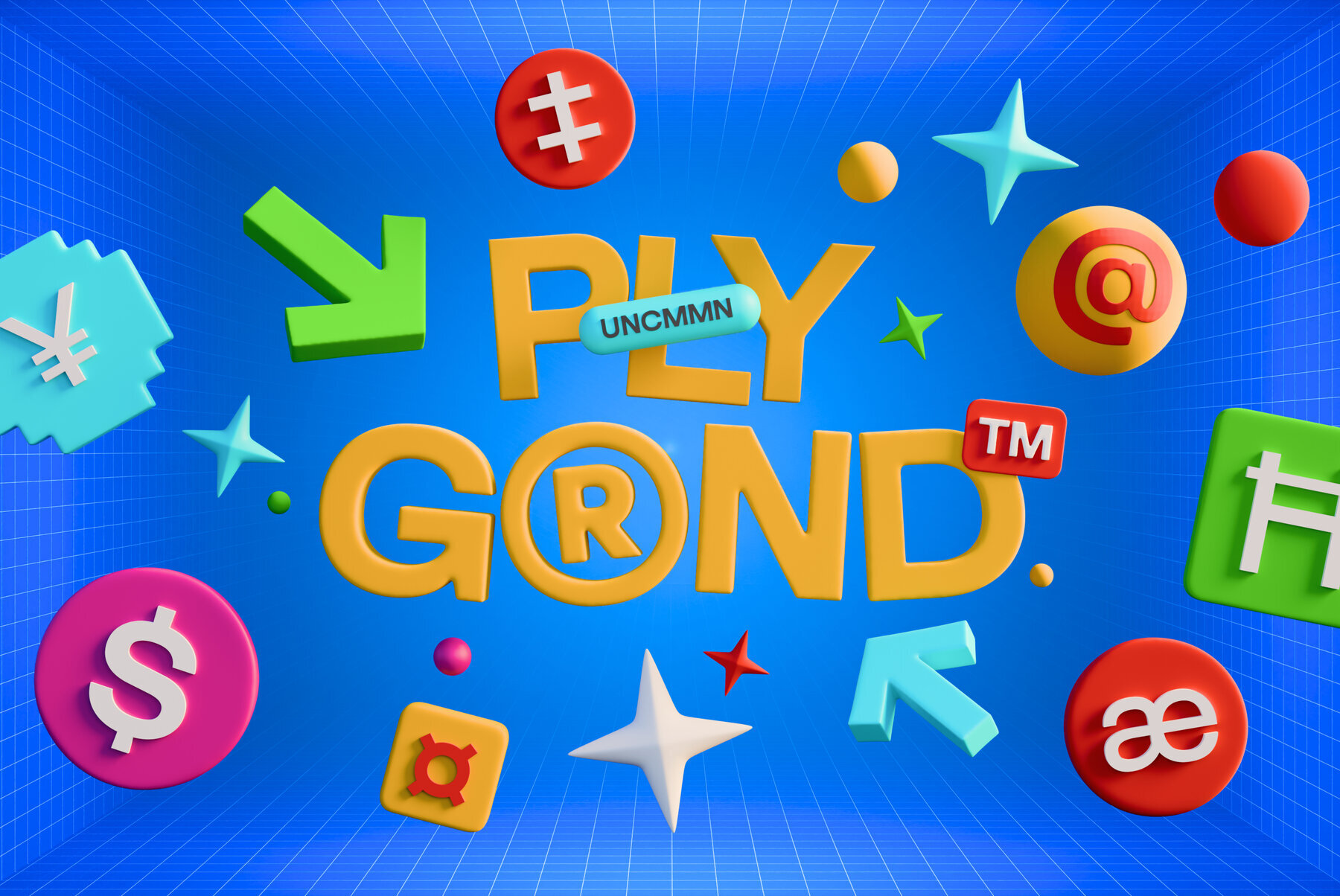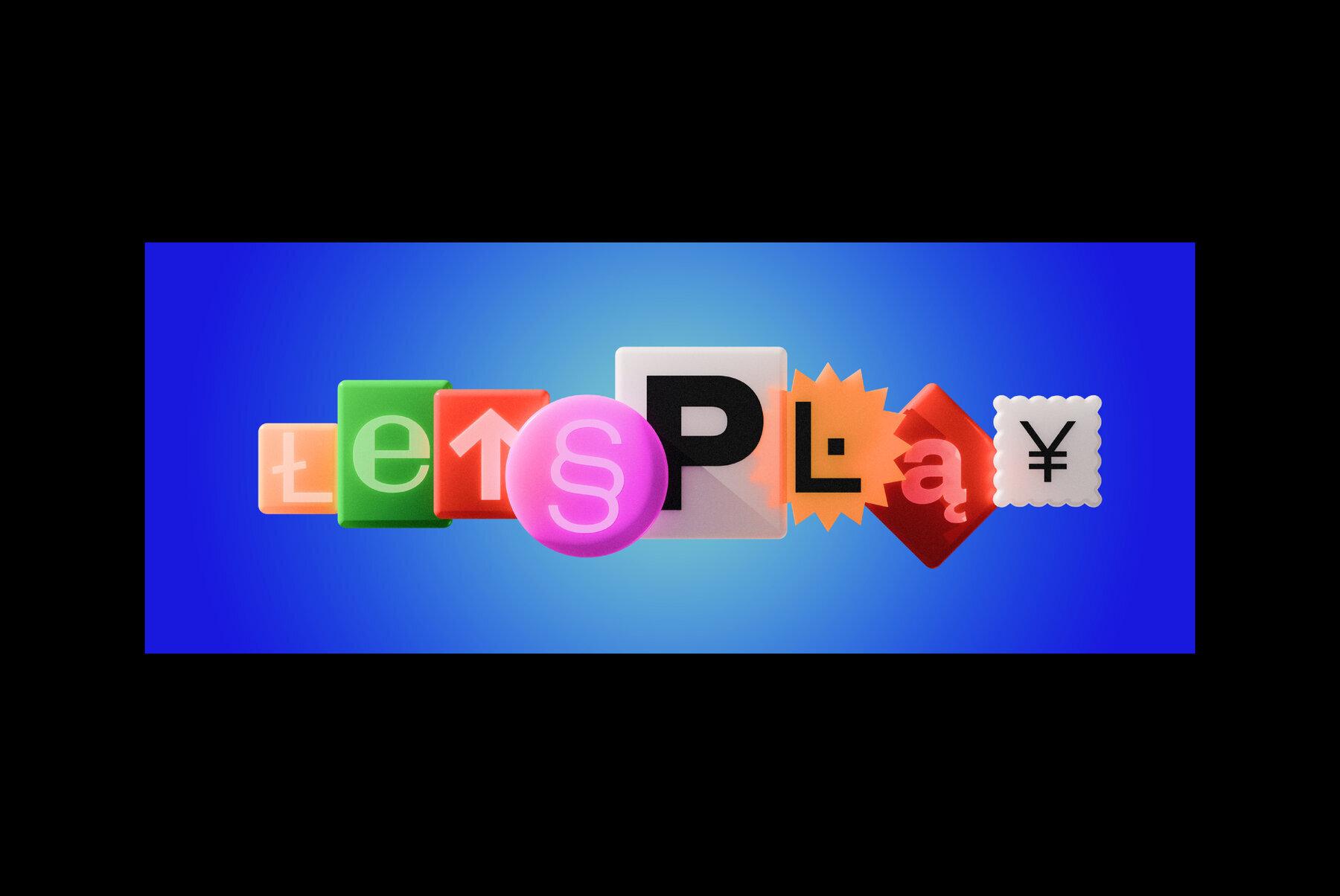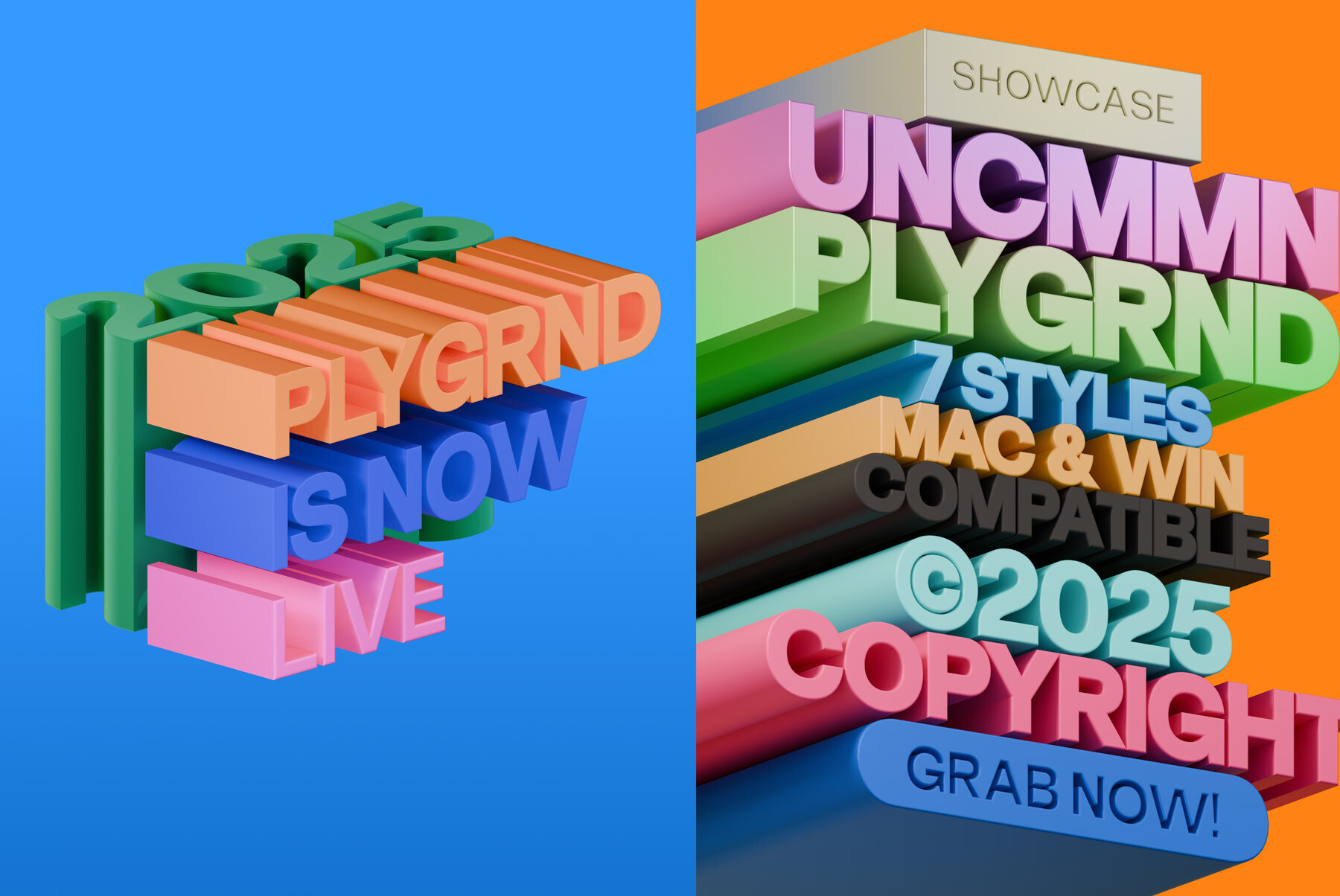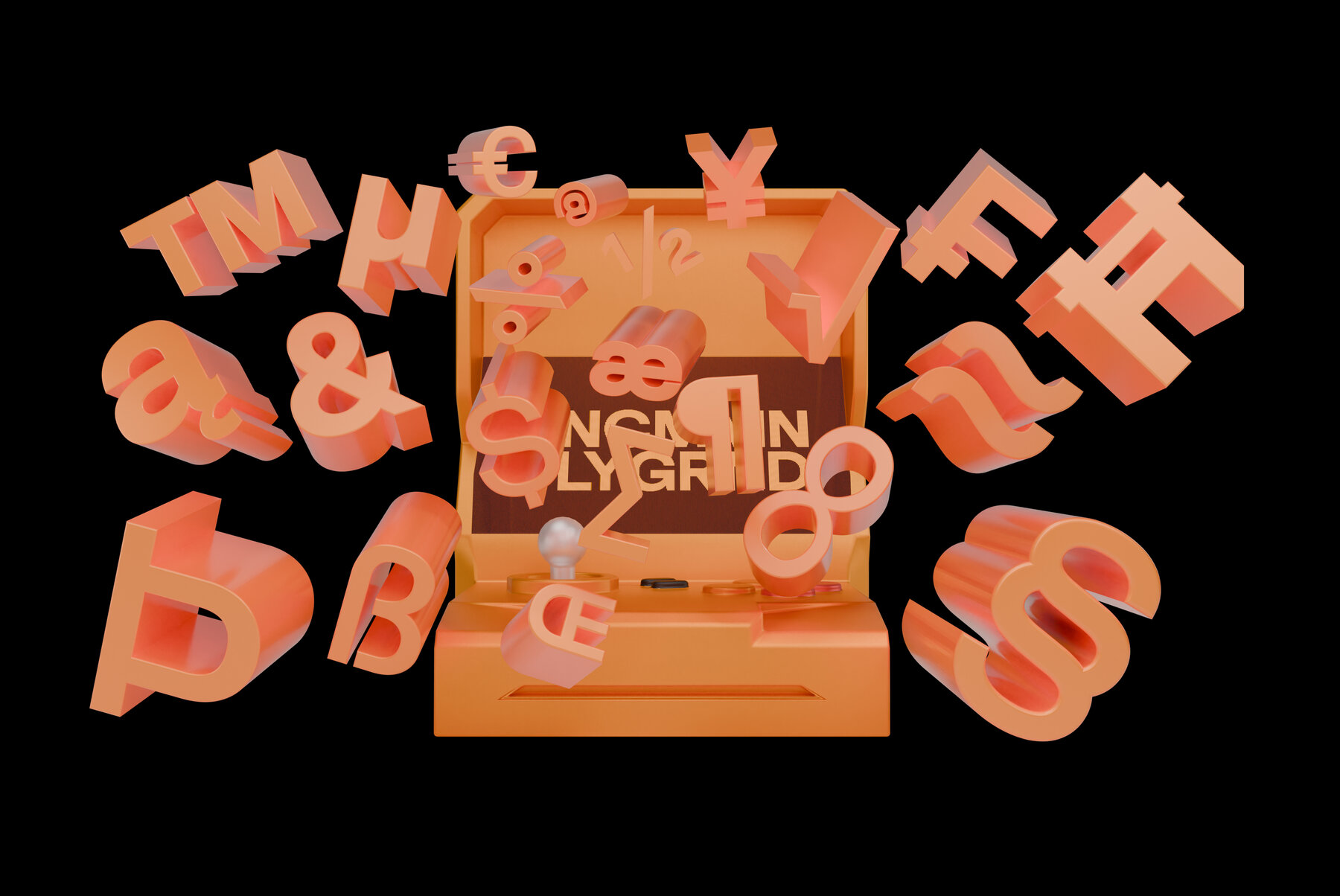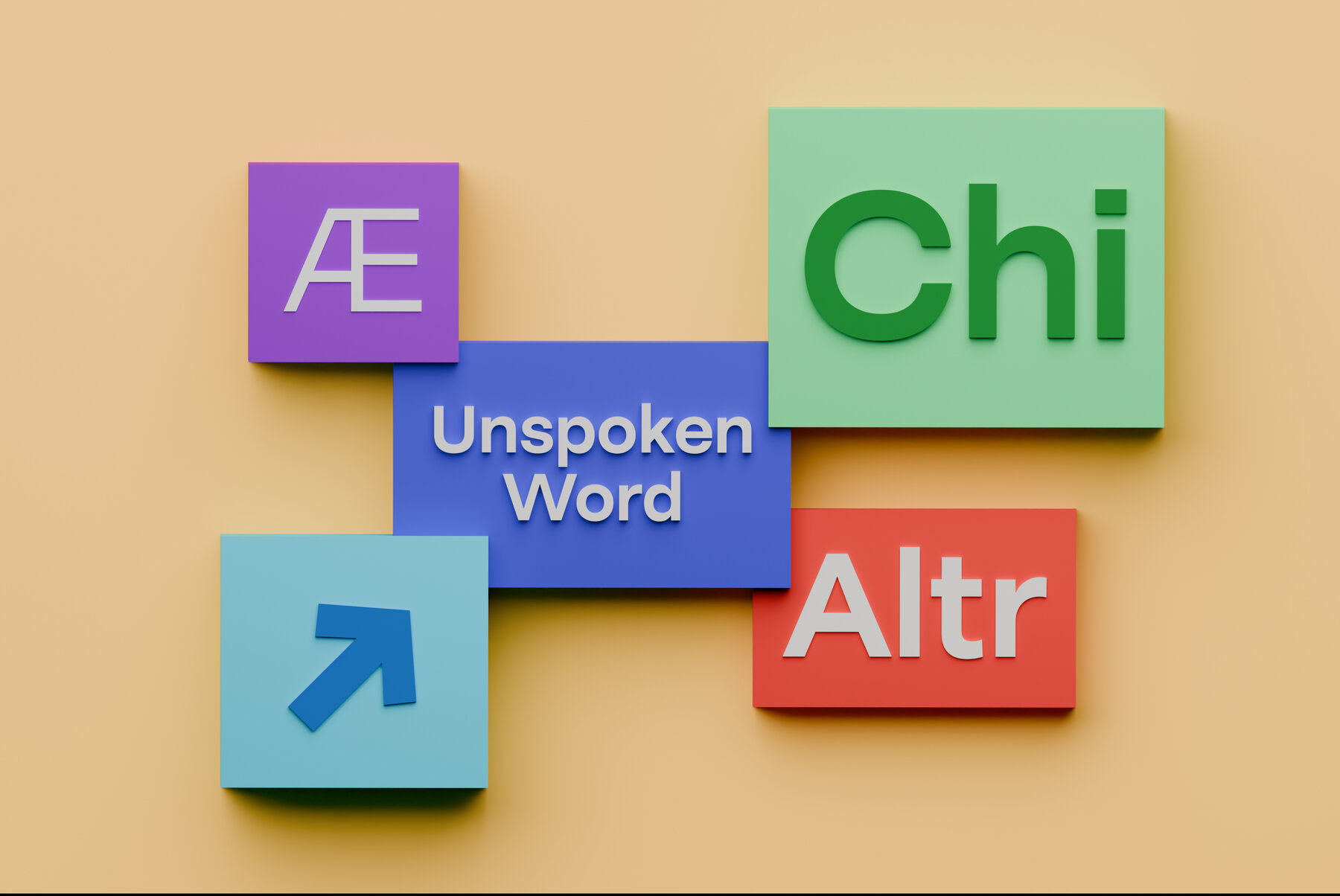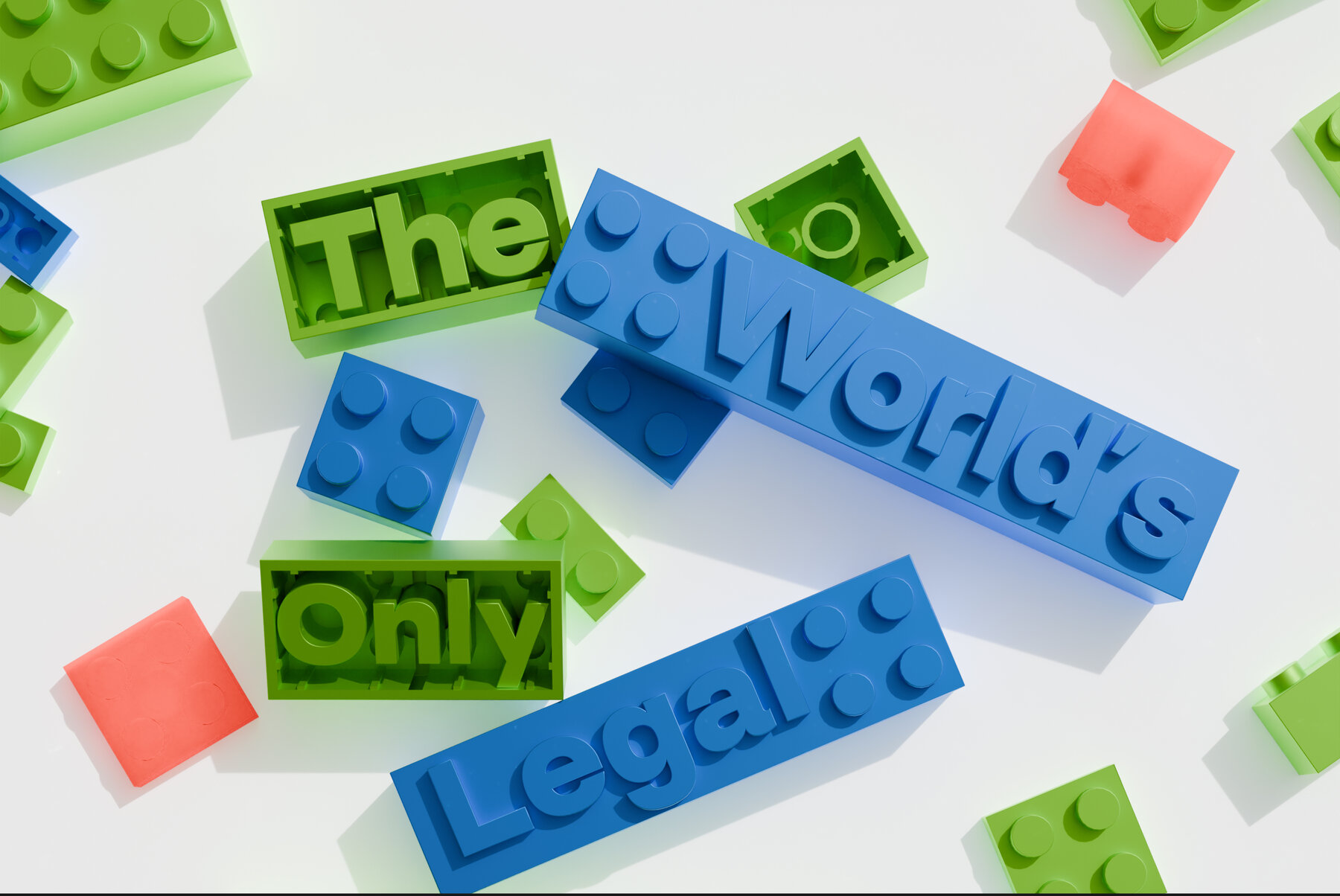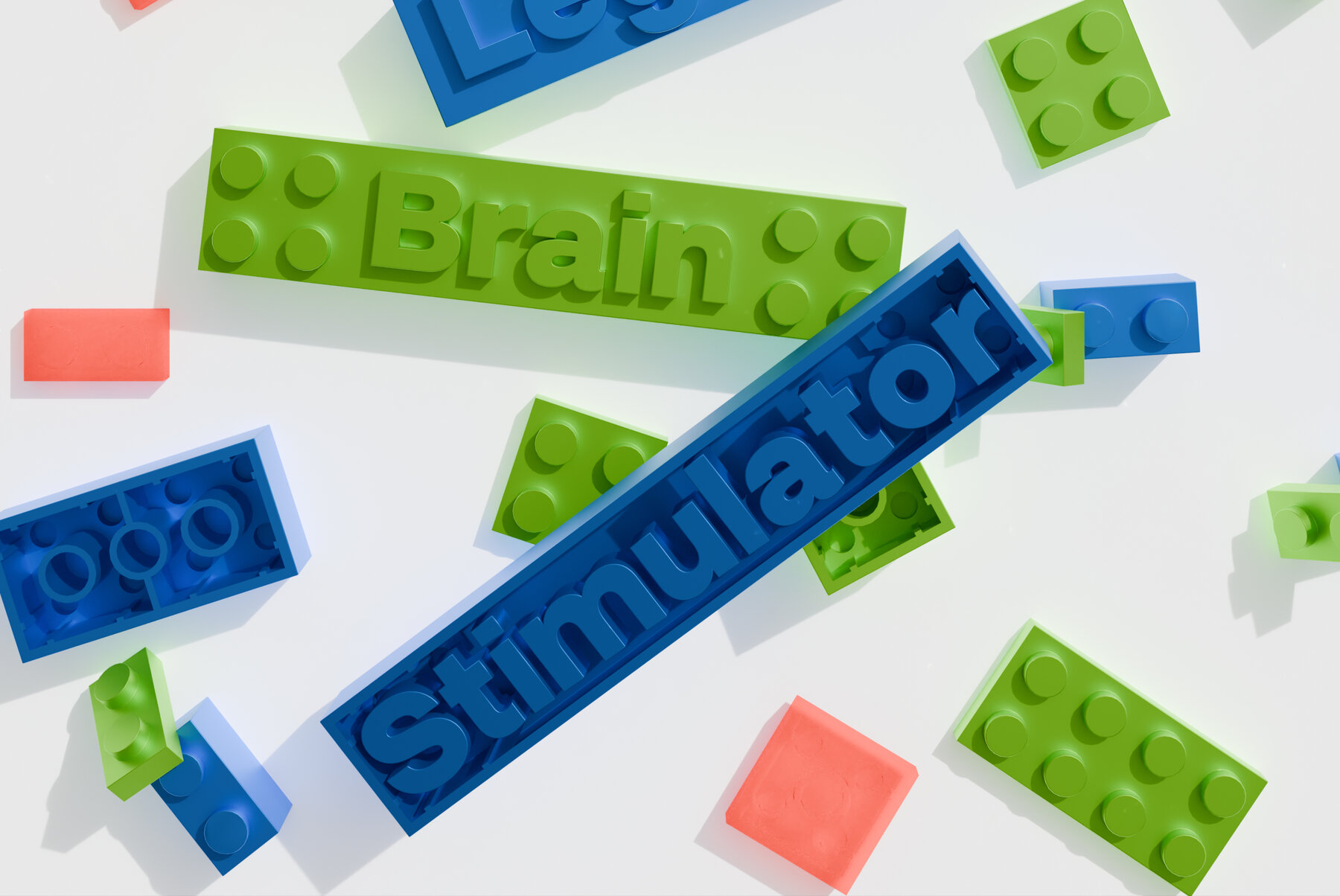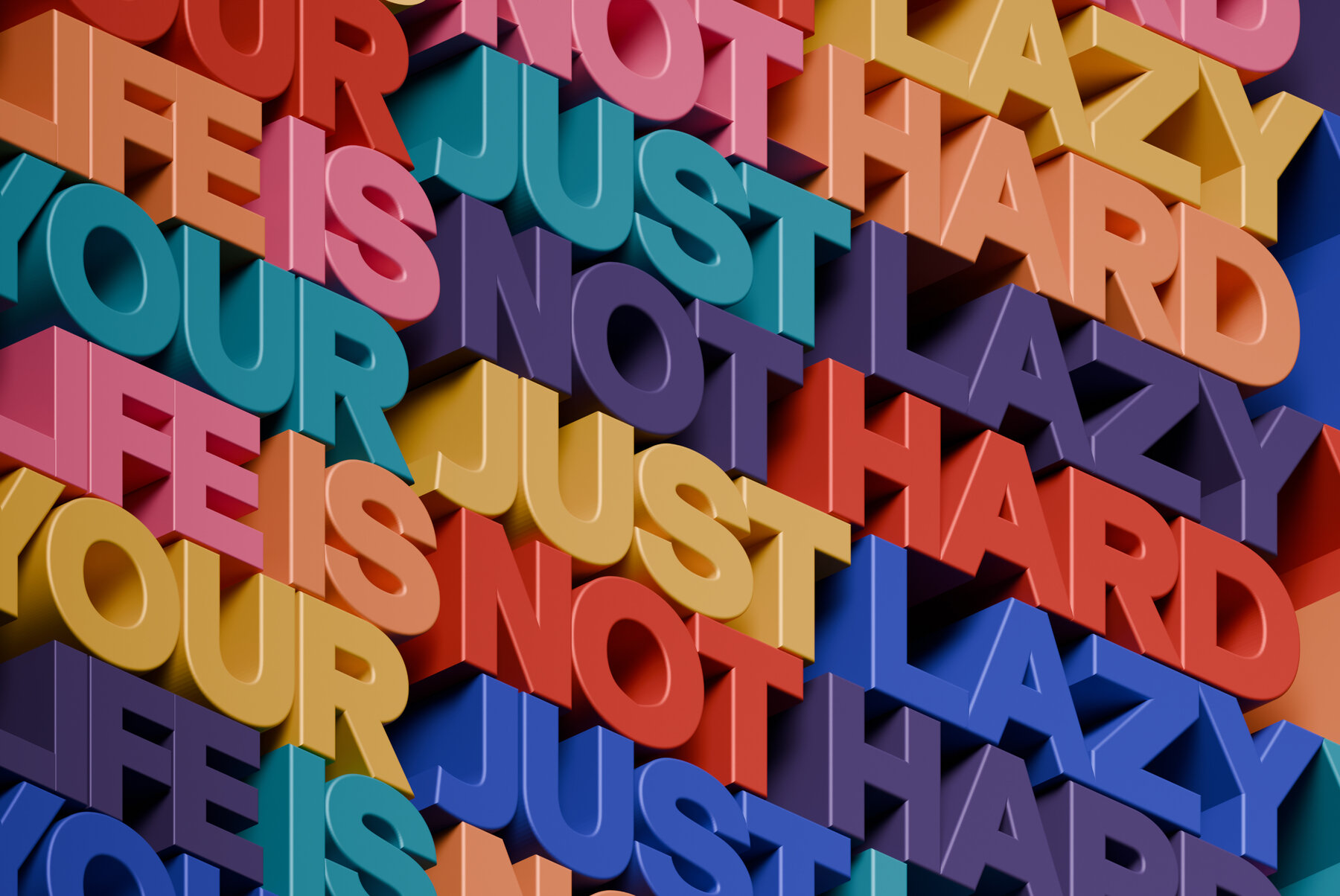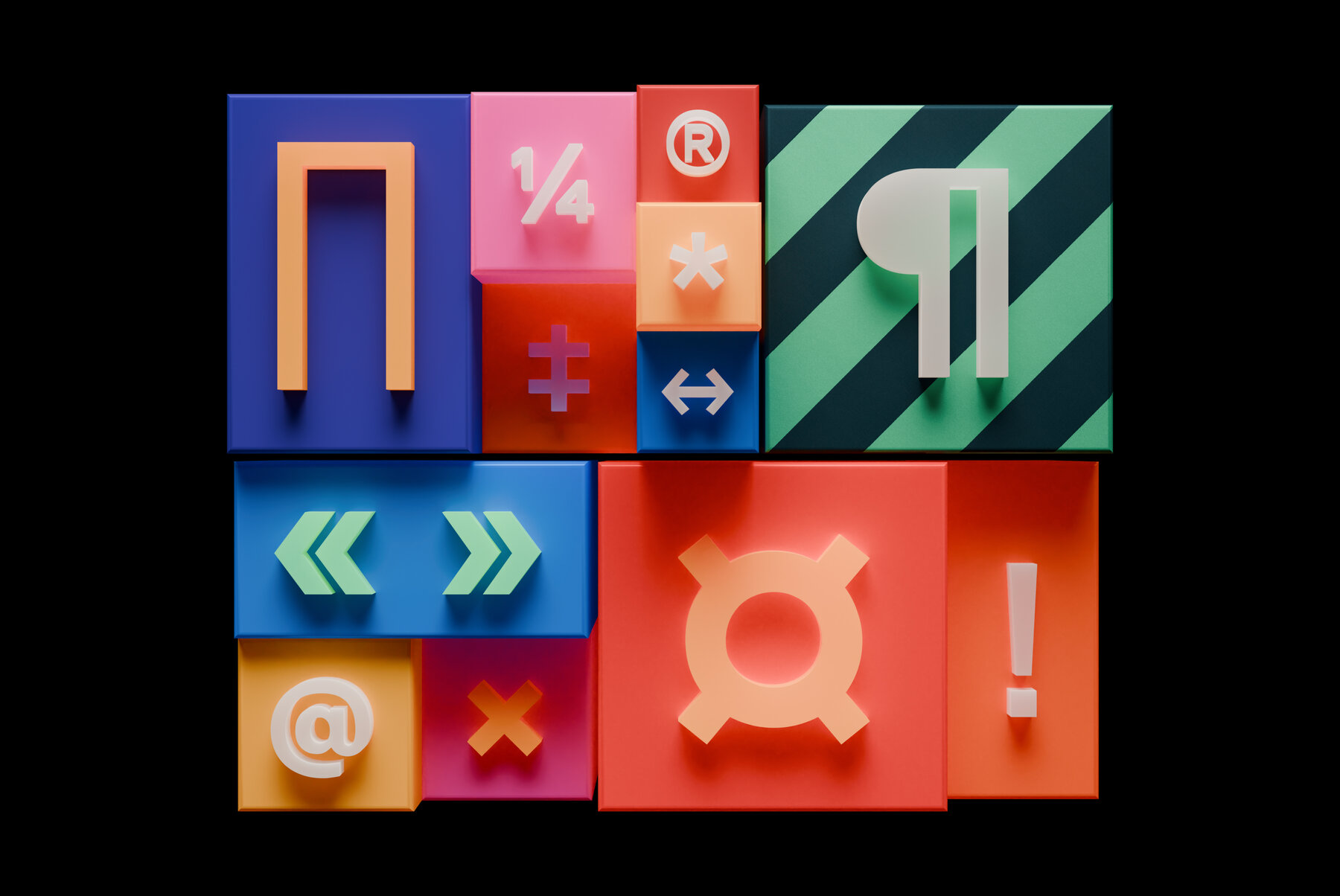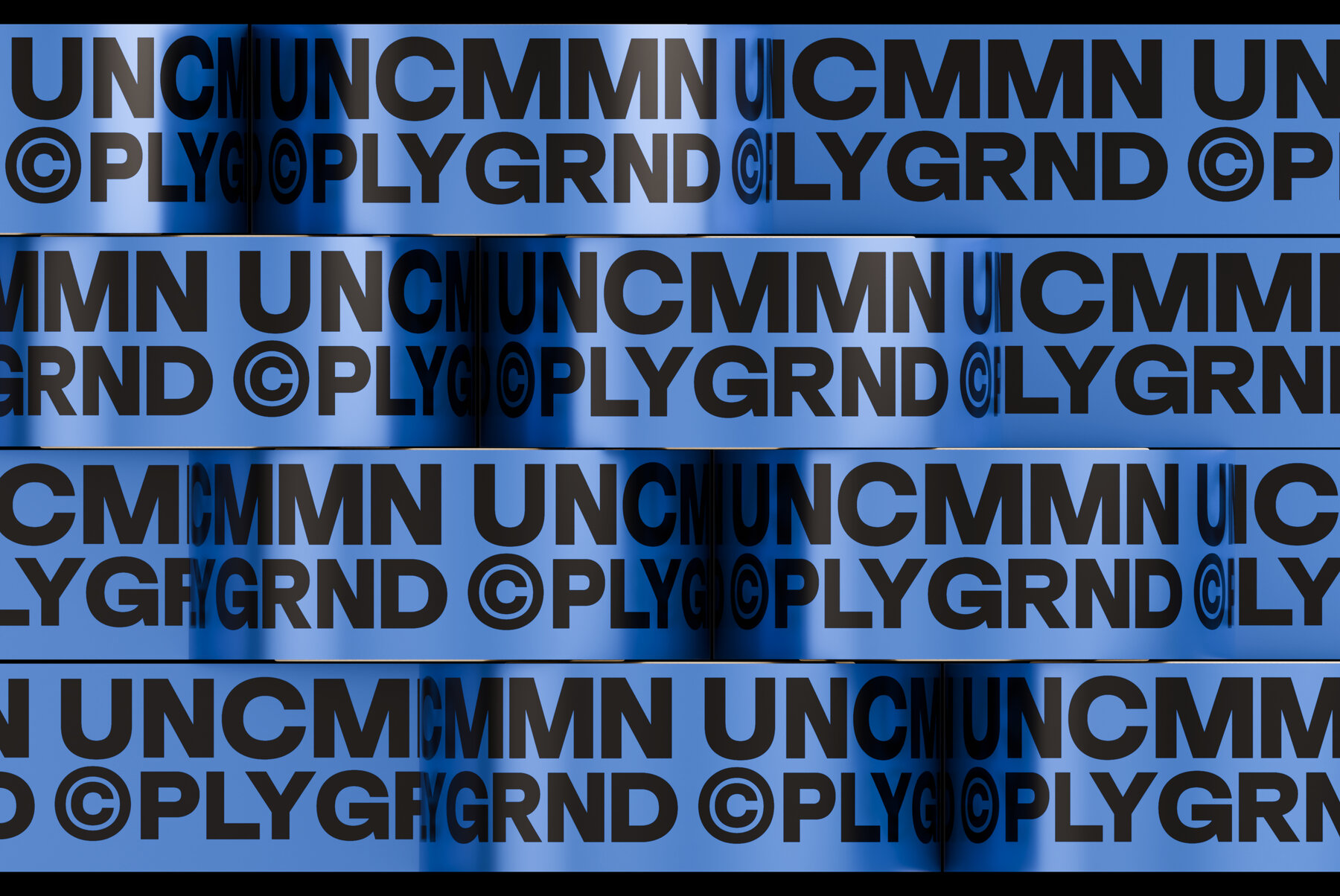
UNCMMN PLYGRND Font
UNCMMN PLYGRND embraces a spirit of creativity through its bold proportions, quirky curves, and unexpected details. This typeface is designed as a modular system featuring multiple styles, inviting designers to mix and match for diverse typographic possibilities. It captures a vibrant and unconventional voice, ideal for projects that pursue bold ideas and a nontraditional aesthetic.UNCMMN PLYGRND: A Playful Sans Serif Typeface